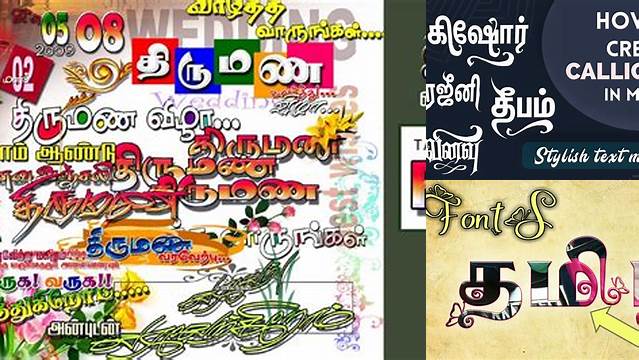
Create Stylish Tamil Fonts Online For Free
Hey everyone! Are you looking to jazz up your Tamil content with some cool fonts? You're in the right place! This article is all about the stylish Tamil font generator online free tools available. We'll dive deep into how you can create eye-catching Tamil text for your social media posts, websites, or even just for fun. So, let's get started and explore the world of Tamil typography! I'll explain how these tools work, where to find them, and how to use them to make your Tamil text shine. Get ready to level up your content with some awesome fonts!
H2: Understanding the Basics of Tamil Fonts
Alright, before we jump into the nitty-gritty of stylish Tamil font generators online free, let's quickly cover the basics of Tamil fonts. Tamil, as you probably know, has a unique script, and its typography is just as distinctive. Different fonts can dramatically change the look and feel of your text. Think of it like choosing clothes for your words! Some fonts are elegant and formal, perfect for official documents, while others are playful and modern, great for social media or creative projects. Understanding these nuances is crucial to making the best choice when using a stylish Tamil font generator online free. You'll want to find fonts that not only look good but also are easy to read and convey the right tone. We're talking about the difference between something that feels like a stuffy government letter versus a cool Instagram post. You want to choose fonts that are readable and represent your message or brand effectively. There are many different styles out there – some are inspired by traditional Tamil calligraphy, and others are more contemporary, blending modern design with the classic script. And of course, you'll want to find options that look good on all devices – mobile, desktop, you name it. The beauty of using a stylish Tamil font generator online free is that you have so many options. You can experiment until you find the perfect font to match your style.
Remember, the goal is to make your Tamil text visually appealing and easy to understand. So, consider the context where your text will appear. What kind of message are you trying to send? Who is your audience? These factors will help you choose the most suitable font. The best part is that with the right tool – and we'll be talking about those in a bit – you can try out different fonts without any cost. That's the beauty of using a stylish Tamil font generator online free tool, allowing you to experiment with different fonts to get the look you want. Don't be afraid to mix and match and see what works best for you!
H2: Benefits of Using a Stylish Tamil Font Generator
So, why should you even bother with a stylish Tamil font generator online free? Well, the benefits are pretty awesome! First off, it's all about making your content more engaging. A well-chosen font can grab your audience's attention and keep them hooked. Think of it like this: a boring font is like a plain white t-shirt – it works, but it's not exactly memorable. A stylish font, on the other hand, is like a cool graphic tee – it expresses personality and makes a statement. It makes a difference, especially for websites or social media, where you need to stand out. If you're looking to increase readability, a good font can significantly improve that. A font that is easy to read will keep visitors on your site longer, absorbing your message. With the right tool, like a stylish Tamil font generator online free, you can choose fonts that are easy on the eyes, making your content more accessible and enjoyable to read. This is particularly useful for long-form content. Another great thing about using a stylish Tamil font generator online free is that you can boost your brand's identity. Fonts are an essential part of branding. A unique font can help people remember your brand and make you easily recognizable. It’s like having a signature look. When people see your font, they will immediately associate it with your brand. This can be particularly important if you're trying to establish a strong presence online. Furthermore, using a stylish Tamil font generator online free can help you add a creative touch to your work. The tools can help with designing beautiful images and graphics. They make it easy to add some flair to your content without having to know any fancy design software.
These tools give you the power to customize the look and feel of your Tamil text, which can bring an amazing creative touch. Whether you're creating images, designing social media posts, or simply want to make your text stand out, these tools offer a world of creative options. These are a great resource for anyone looking to create visually appealing and professional content with Tamil fonts.
H2: Top Free Online Tamil Font Generators to Try
Let's get to the good stuff, shall we? Now, here are some top stylish Tamil font generators online free tools that you can use today:
- Google Fonts: Google Fonts offers a vast library of fonts. You can easily filter by language and find several Tamil fonts, each with different styles and characteristics. You can find fonts that can be used in different designs. Google Fonts is a fantastic option for integrating Tamil fonts into your website or design projects. And the best part? It's totally free! All the fonts are open source, so you can use them however you want, no strings attached.
- Online Tamil Font Converter: This is where you can transform your text into a particular font style. All you have to do is type in your Tamil text, choose your preferred font, and there you have it! A lot of these tools have different options to customize your font and preview it before use, allowing you to make sure it's perfect for your needs. They are also typically very user-friendly, making it easy for anyone to use. These tools are perfect if you are looking for something quick and easy.
- DaFont: DaFont is a huge online library of fonts. It offers a wide selection of Tamil fonts to download and use. DaFont is a good choice if you want to download fonts directly to your computer to use with your favorite design software. DaFont is great for adding a creative touch to your work.
When using these tools, remember to double-check the font license to ensure it is free for your intended use. Many fonts are free for personal use but require a license for commercial purposes. You can avoid any legal issues by being sure of this. So, have fun exploring these tools, and let your creativity run wild! These are just a few tools to get you started. When you use a stylish Tamil font generator online free, you can bring your words to life and make your Tamil content truly stand out.
H2: Step-by-Step Guide: Using a Tamil Font Generator
Alright, let's walk through how to use one of these fantastic stylish Tamil font generator online free tools. The process is typically simple and straightforward, but let me break it down to make sure you get the most out of it. First, you'll need to choose a generator. As we mentioned before, there are many to choose from, so feel free to pick one that suits you. Once you've selected your preferred tool, start by typing or pasting your Tamil text into the designated text box. Most tools will have a clear input area where you can enter your words. Next comes the fun part: choosing your font! These generators usually provide a preview of what the font will look like, so you can try out different styles until you find the perfect fit. If you are a beginner, don't worry – this is designed to be user-friendly. You can experiment with various options until you are satisfied. After selecting the font, you may find additional customization options, such as the font size, color, and spacing between letters. Once you've customized it to your liking, it's time to get your generated text. Most tools offer options to either download the text as an image, copy it to your clipboard, or provide the code you can use on your website. This depends on the tool you choose. Choose the appropriate format for your project and then simply paste the generated text wherever you need it. Always test your text to see if the font appears as expected in your design or on your website. That's it! With a little practice, you'll become a pro at using stylish Tamil font generator online free tools.
H2: Advanced Design Tips for Using Tamil Fonts Effectively
To get the most out of Tamil fonts, here are some advanced design tips. Prioritize your font combinations. Select fonts that complement each other. Use the different weights and styles. Then, take advantage of kerning. Adjust the spacing between characters for a better look. Optimize the layout. Focus on readability. Create a visual hierarchy. Get feedback. Test the design on multiple devices. By implementing these tips, you can enhance your projects. The best approach is to use a stylish Tamil font generator online free for optimal results.